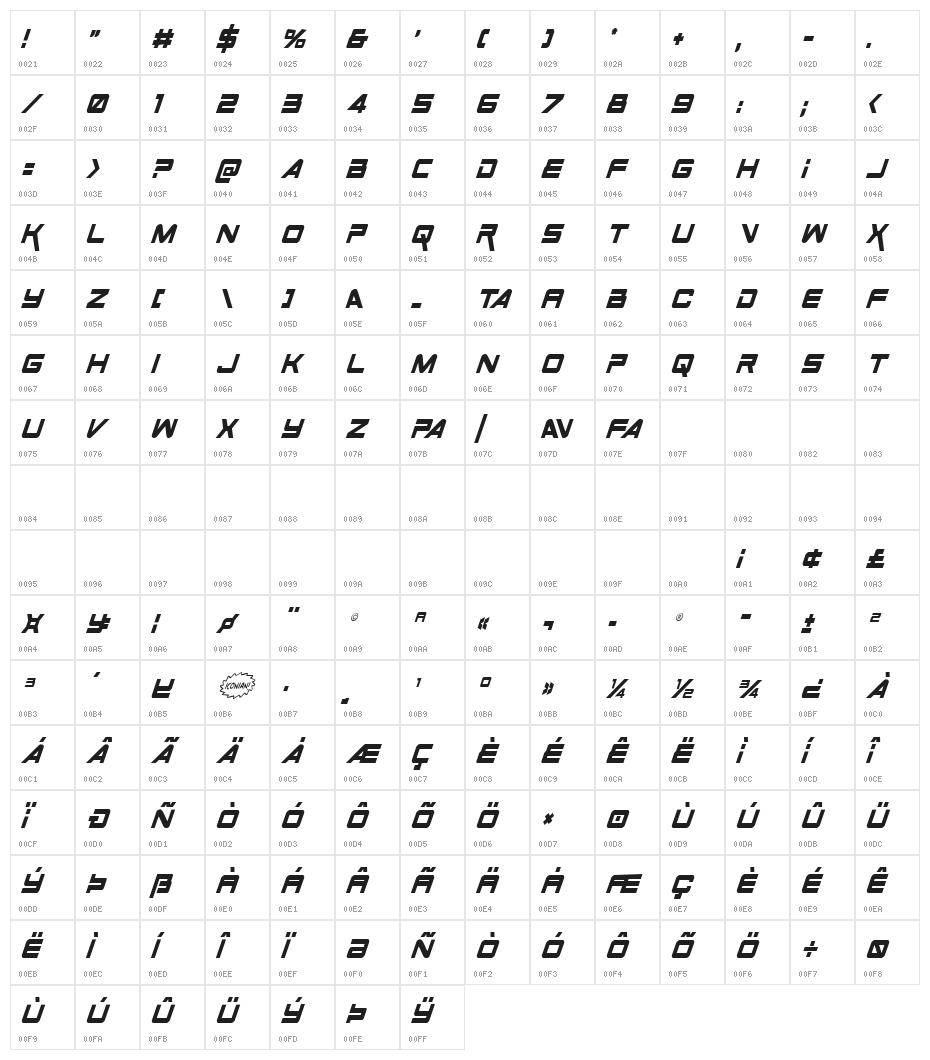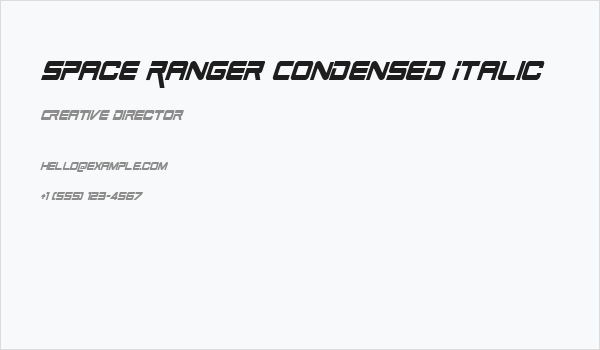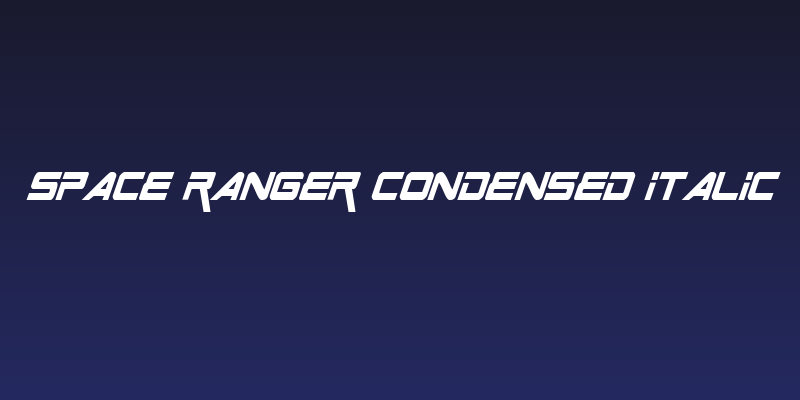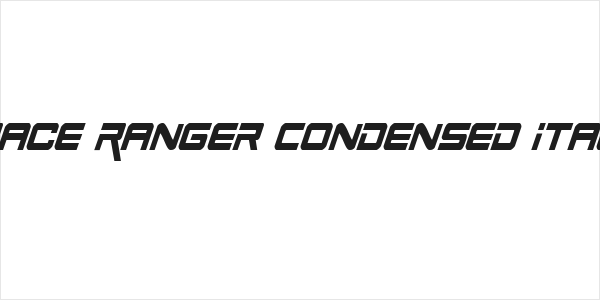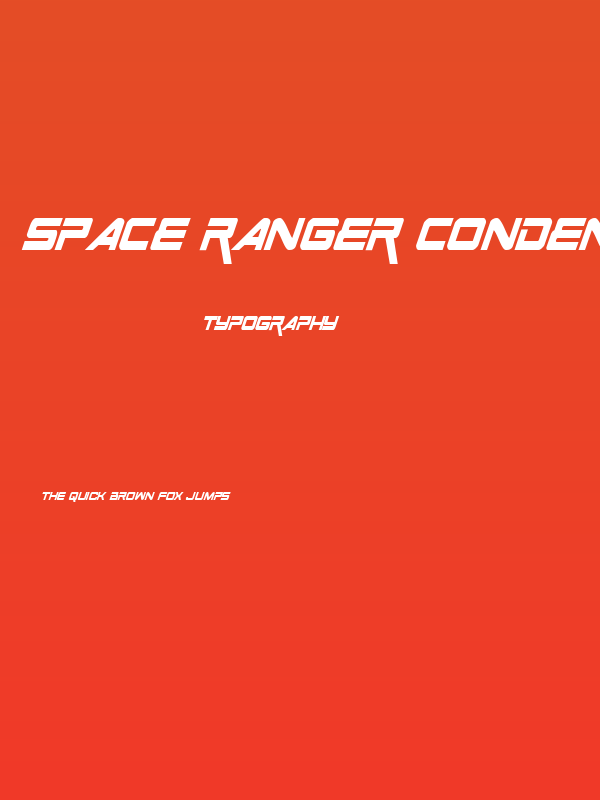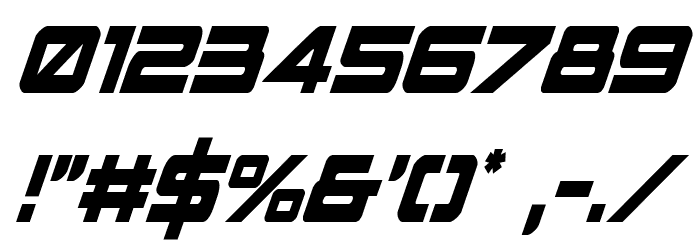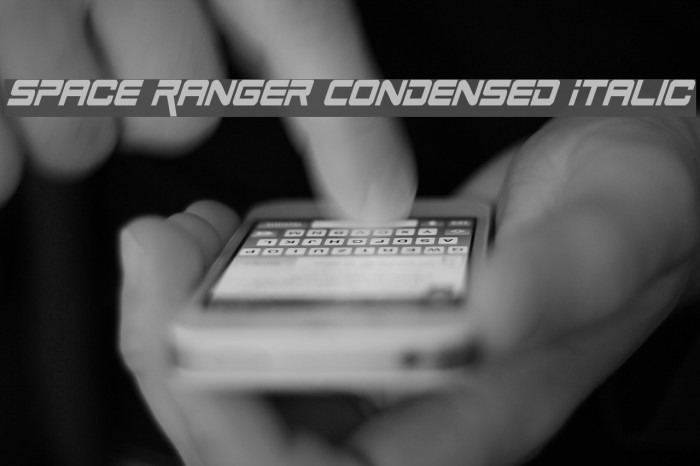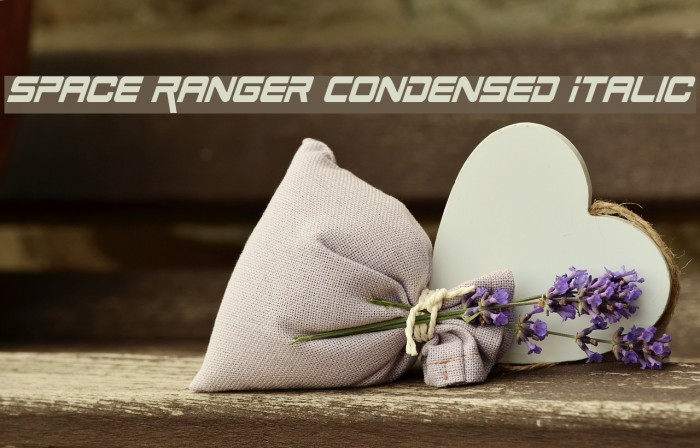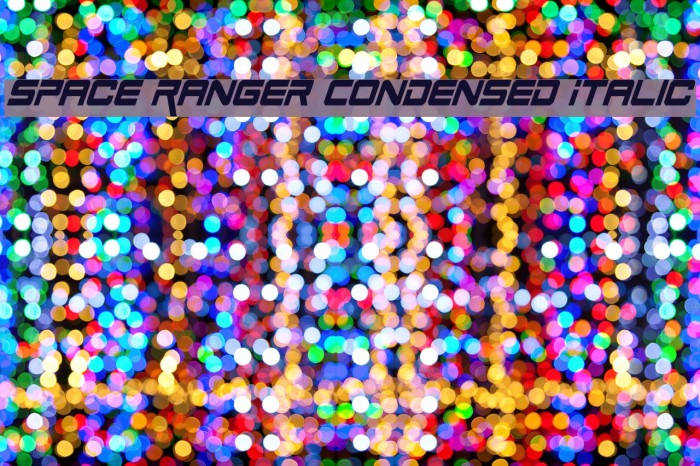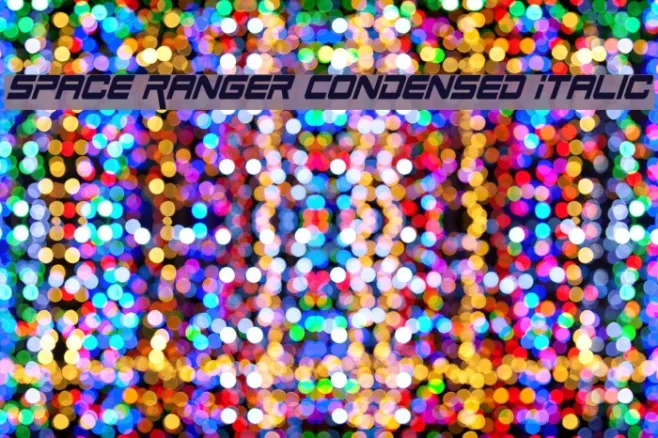
Space Ranger Condensed Italic Font
Space Ranger Condensed Italic Description
This font exhibits a futuristic and sleek design, characterized by its italicized and condensed letterforms. The angular and sharp edges give it a dynamic and modern appearance, reminiscent of sci-fi aesthetics. The consistent slant across all characters enhances its sense of motion and speed. The uniform stroke width provides a clean and cohesive look, making it suitable for projects that require a bold and impactful visual presence. The spacing between characters is tight, contributing to its compact and efficient style.
| Proposed Projects | Ideal for sci-fi themed projects, technology branding, video game titles, and futuristic posters. |